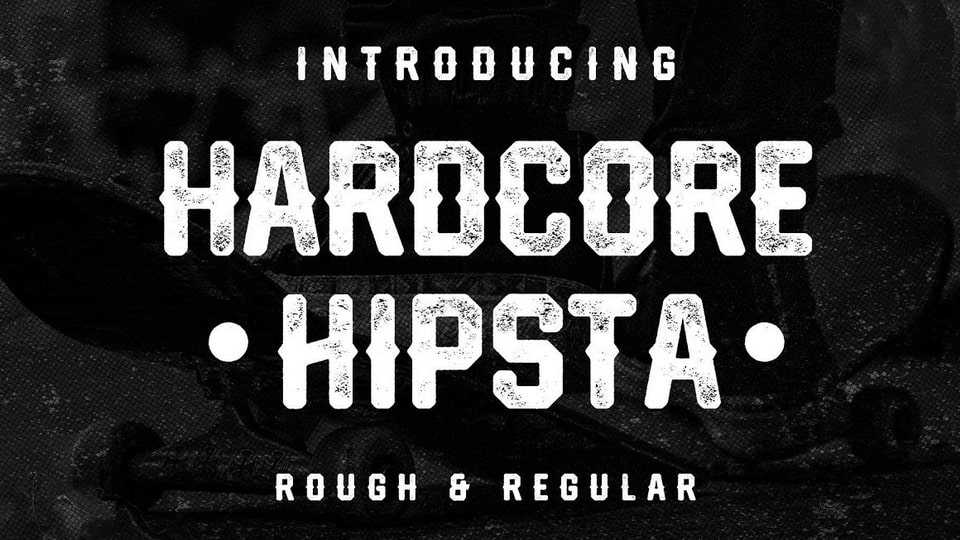
Download Hardcore Hipsta font, a vintage display typeface. Comes in regular and rough styles which are perfect for your next project. It’s strong, bold, tough, and has confident looks.